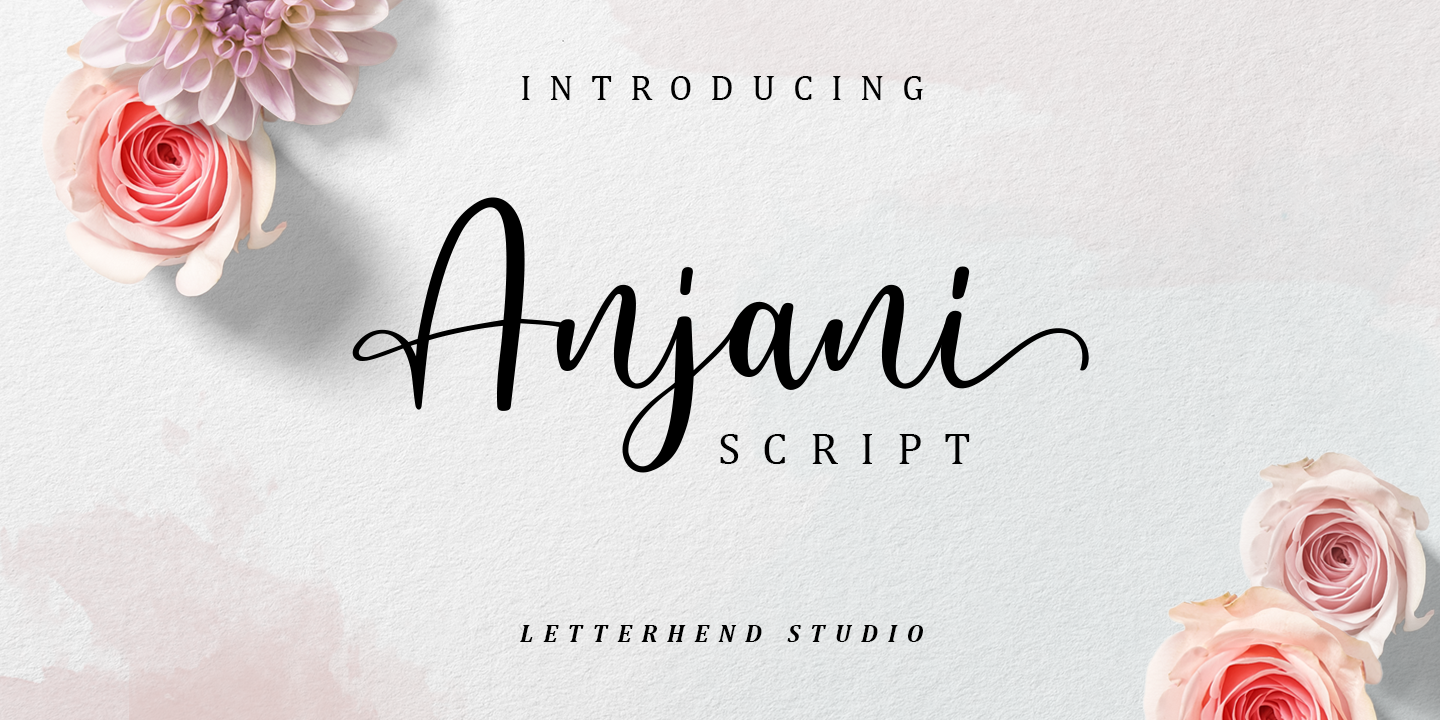
Anjani Script
Looking for a elegant and sophisticated script font to add a touch of personality to your design? Look no further than Anjani Script-inspired fonts!
This modern handwritten font offers a unique blend of classic charm and contemporary flair. Its stunning feel is perfect for projects where you want to convey creativity, sophistication, or whimsy.
Key features include:
- Uppercase and lowercase letters that flow together seamlessly
- A wide range of punctuation marks and symbols to add visual interest
- Numerals that perfectly complement the handwritten style
- Stylistic set alternate characters for added versatility
- Authentic ligatures that create a sense of fluidity and continuity
Whether you're designing a luxury brand identity, creating a wedding invitation, or crafting a unique headline, Anjani Script-inspired fonts are sure to impress. Their modern, yet timeless feel makes them perfect for a wide range of applications, from fashion and beauty to food and beverage.
If you're looking for a font that's both elegant and expressive, with a dash of personality and flair, then this is the perfect starting point for your design journey!